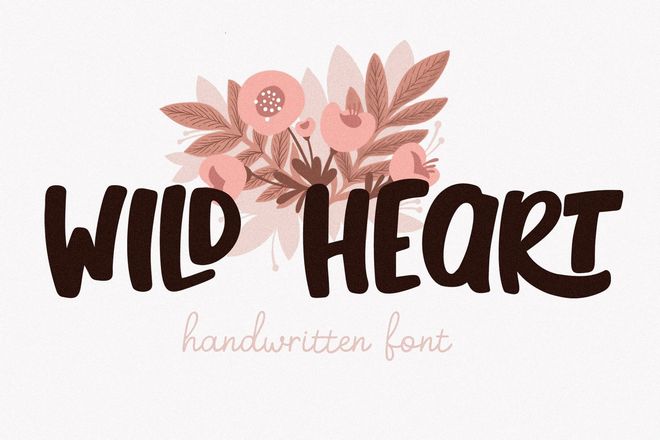
Sink – Retro Sans Serif Cricut Font
Sink is a distinctive sans serif Cricut font, with a bold, retro style. Its weighty presence is ideal for assertive titles and packaging, and its slightly rounded edges soften its commanding look. Sink offers a harmonious blend of vintage appeal and modern readability. It comes in both otf and ttf formats, with uppercase and lowercase options, alternate, ligature, and multilingual support.
Black – Rounded Script Cricut Font
Black is a script-style font for Cricut. Its curvy letters and handwritten style add a unique, expressive touch to headlines, logos, or branding. It’s a retro, elegantly charming font with a fun twist, great for designers looking to stand out. The font includes uppercase, lowercase, numeric, and multilingual support, as well as ligatures and stylistic alternates.
Thoge – Creative Cricut Font
Thoge is a whimsical Cricut font inspired by rubber balloons that brings a lively touch to any design. The package includes the Thoge font in .ttf, .otf, .woff formats, complete with numbers, punctuation and ligature characters. This playful typeface is well-suited for vibrant titles and even supports multiple languages across Latin Western Europe.
Lovely Drama – Retro Cricut Font
Lovely Drama is perfect for infusing an adorable, vintage charm to your typography. Being a handcrafted type, it effortlessly decorates stickers, quotes, prints, Cricut projects, and more. Notably, it provides multilingual support, punctuation, and numbers.
Wild Heart – Script Cricut Font
Wild Heart is a modern handwritten font that’s ideal for creating greeting cards, customizing t-shirts, and more. This universally compatible font supports uppercase letters, punctuation, and numbers, as well as multiple languages.
Bloomy – Personal Cricut Font
Add an inspired touch to your print designs with Bloomy Cricut font. This creative asset transforms your work, lending it an air of bold distinctiveness and a unique edge. This font is a superb choice for those looking to take their designs to the next level in one fluid stroke.
Originals – Hand Drawn Cricut Font
Originals is a charming and creative font suitable for various Cricut projects. This versatile typeface has a vintage, hand-drawn aesthetic that looks stunning on signs, shirts, and cards. It works exceptionally well in fresh, summer-themed designs.
Farmhouse – Rustic Cricut Font
Farmhouse is an appealing vintage-inspired font ideal for creating rustic-themed designs. Suited for designing stickers, quotes, prints, Cricut projects, and more, it includes punctuation, numbers, and multilingual support. The package includes Farmhouse Font in TTF and OTF formats.
White Beach – Quirky Handwriting Cricut Font
White Beach is a fun and engaging font that features a one-of-a-kind, bold, handwritten design. Perfect for crafters, Cricut, Canva users, and more, it boasts multilingual character support and is available in OTF, TTF, and WOFF for webfont use.
Billy Gates – Handwritten Cricut Font
Billy Gates is an elegantly monoline, handwritten font with thin and narrow letters. Perfect for various design projects such as branding, quotes, posters or social media posts, it comes with full upper and lower case glyphs, numbers, punctuation, symbols and multi-language support. This convenient font supports both .otf and .ttf files.
Love Story – Cute BubbleCricut Font
Love Story is a charming bubble-style font ideal for adding an adorable touch to your titles and headings. It is compatible with a variety of design tools like Adobe Illustrator, Photoshop, Procreate, Cricut Design Space, and Canva Pro. This package includes punctuation, numbers, and multilingual support.
Nok – Fresh & Playful Cricut Font
Explore your creative side with Nok, a playful Cricut font. This modern, bubble-styled font is designed with a blend of simplicity and sophistication sure to add personality to your projects. Nok’s clean, rounded edges and soft curves make it ideal for logos, headlines, or posters, offering a friendly, contemporary look.